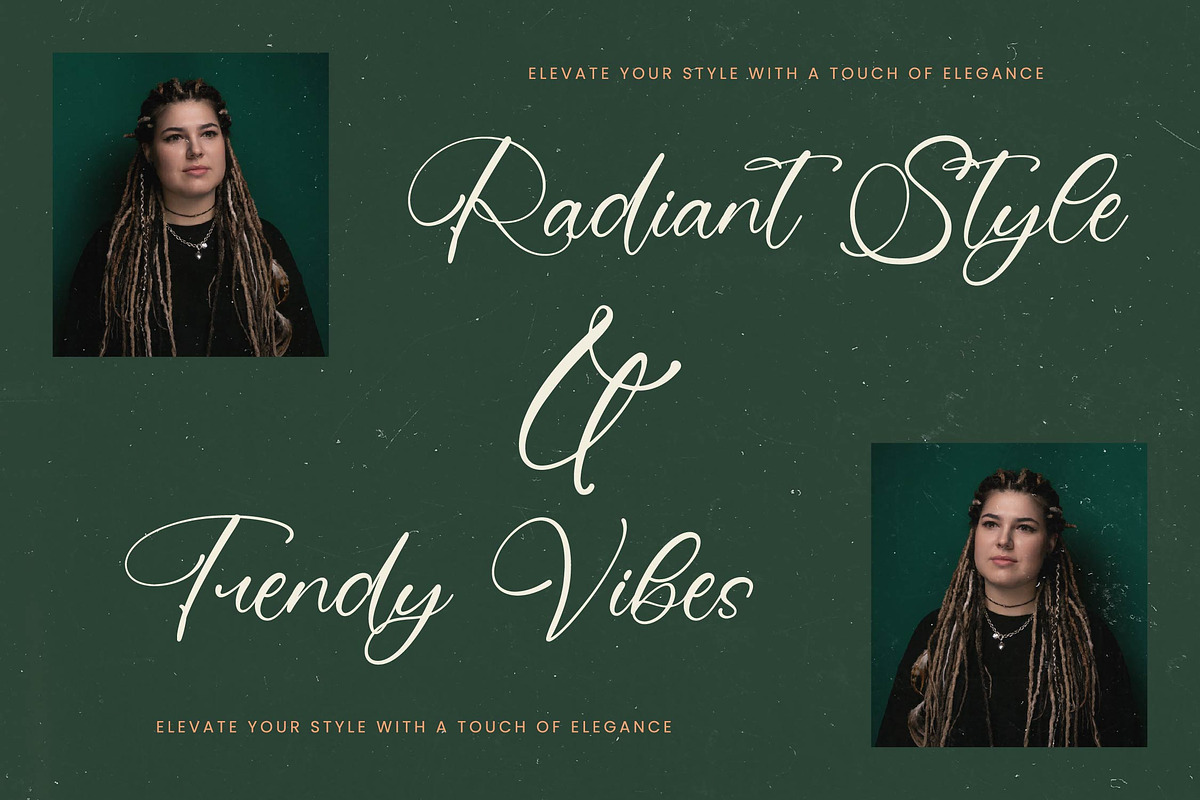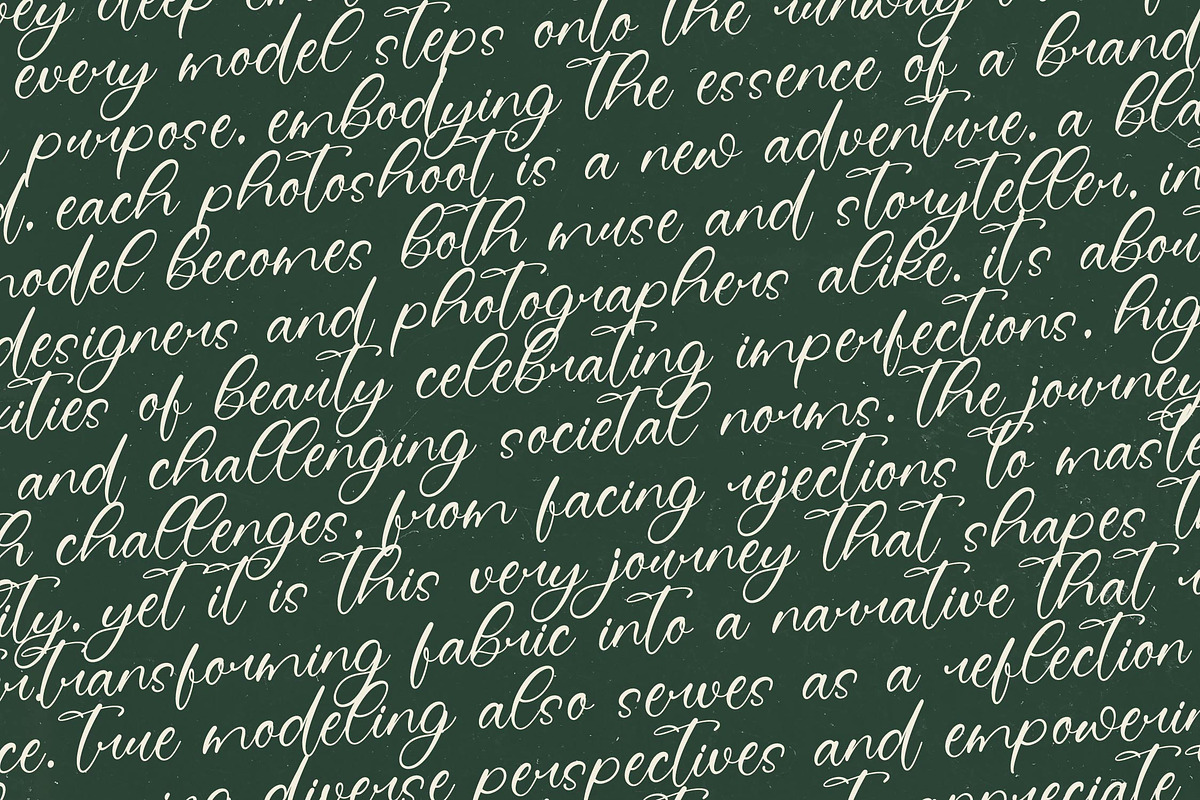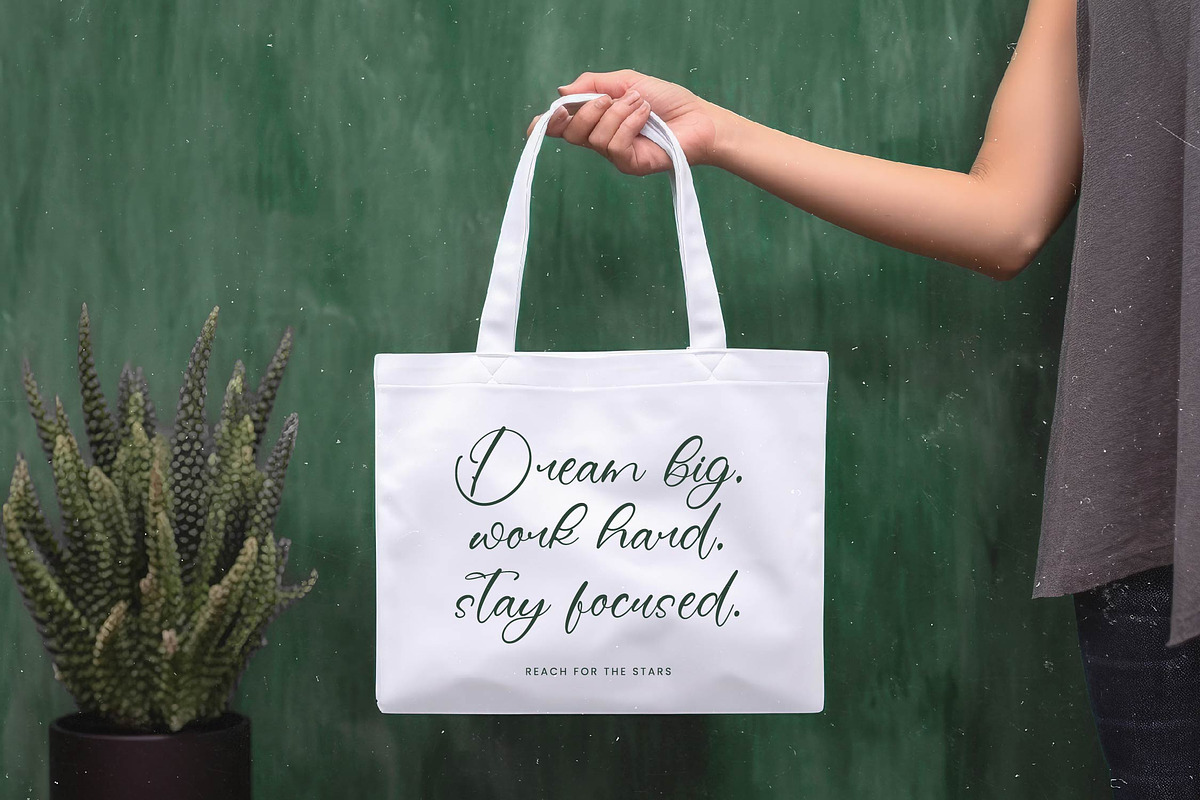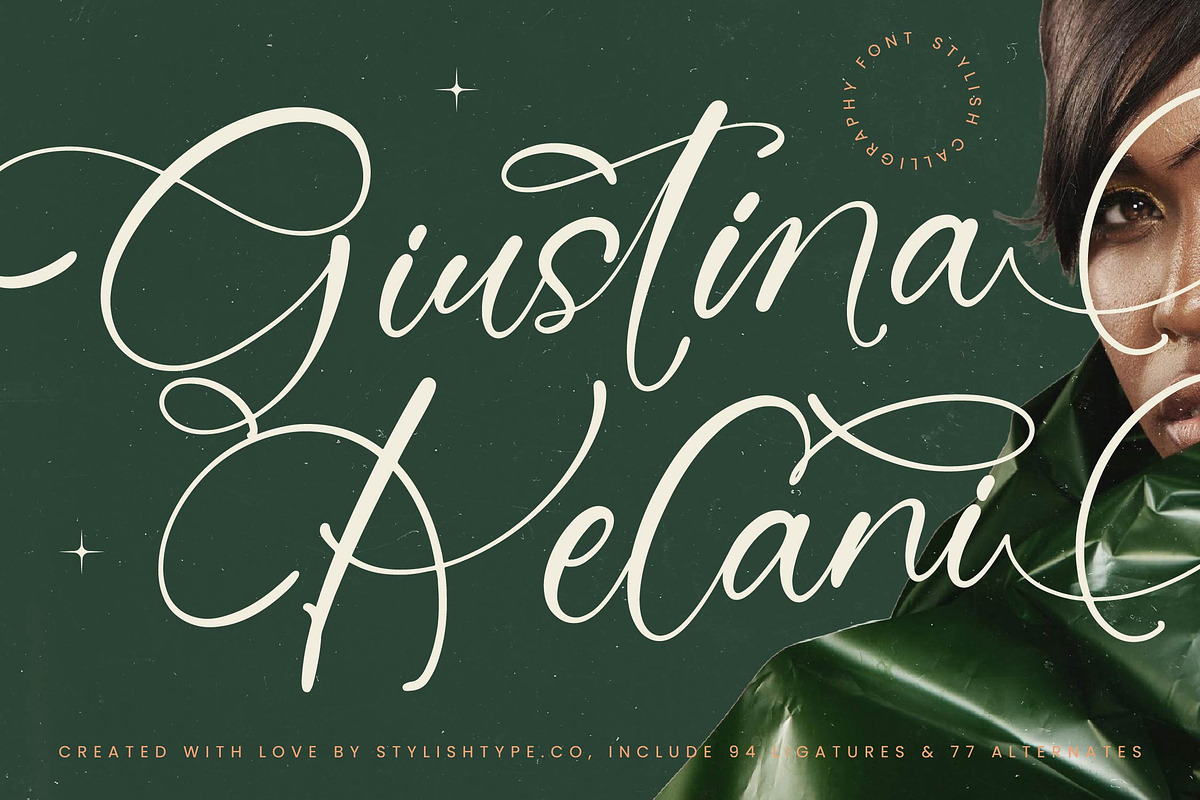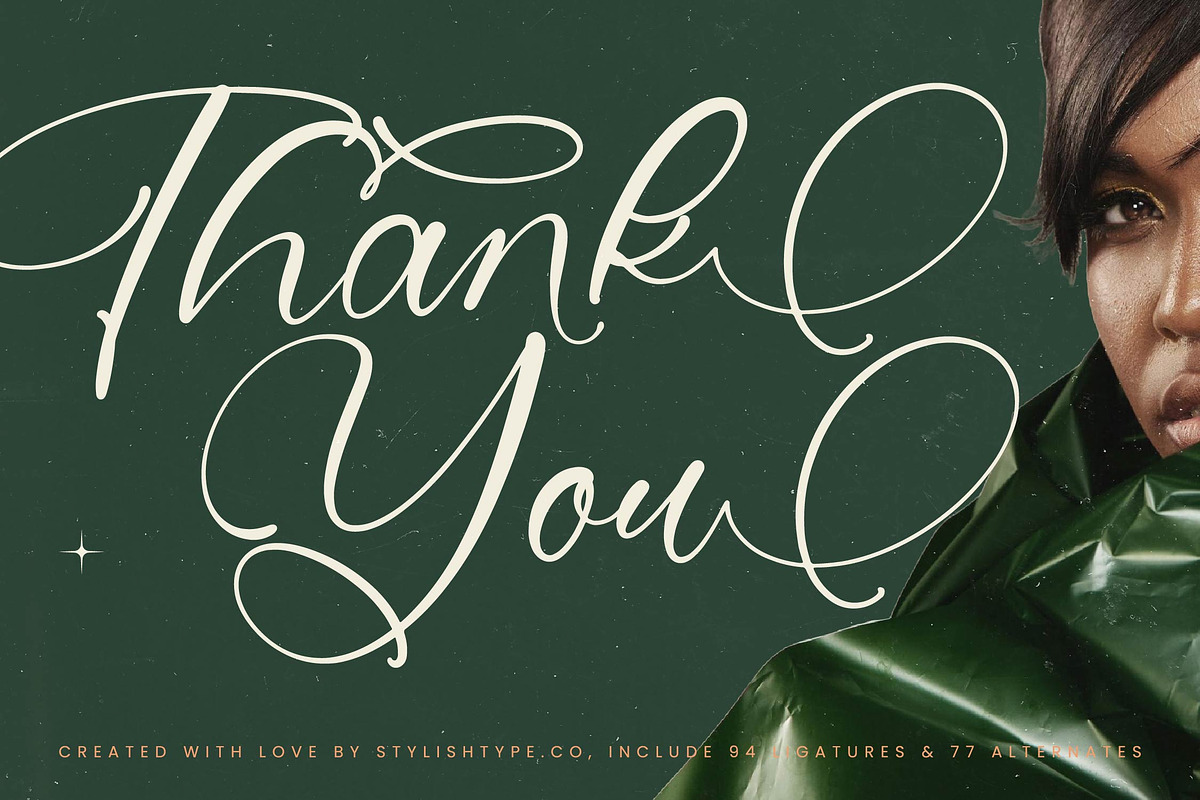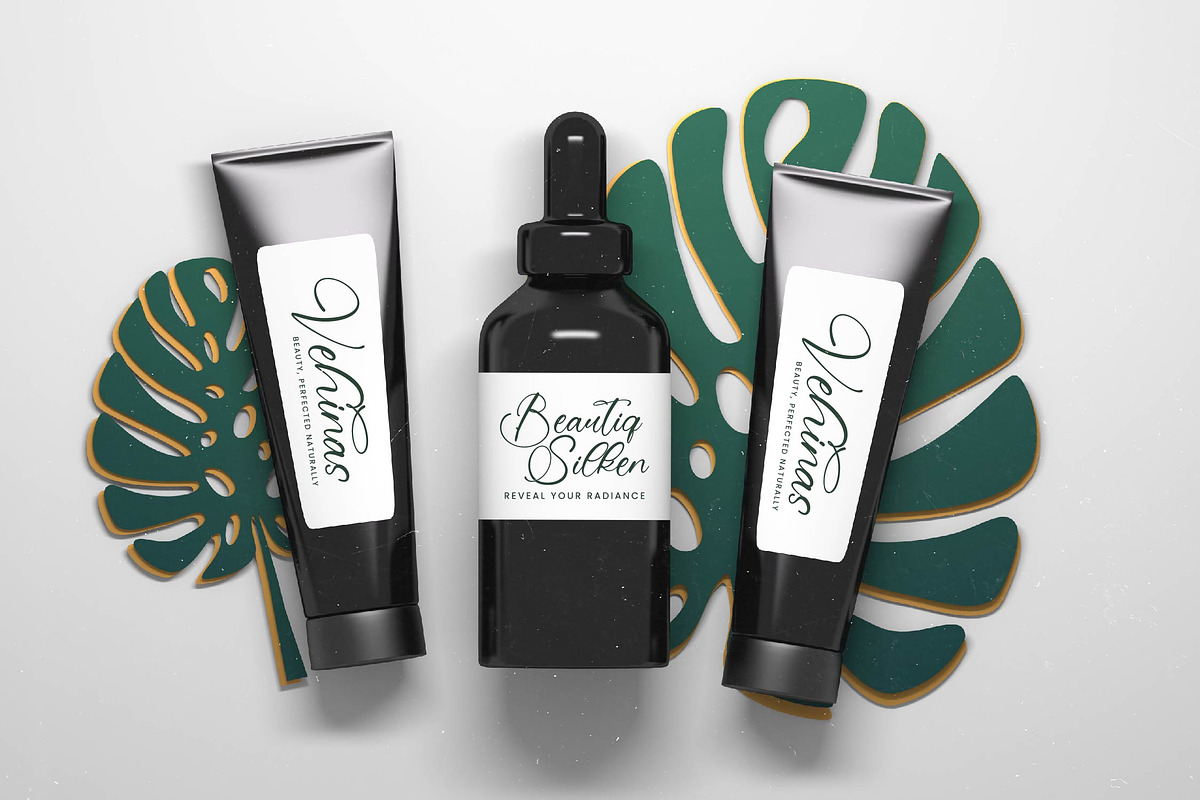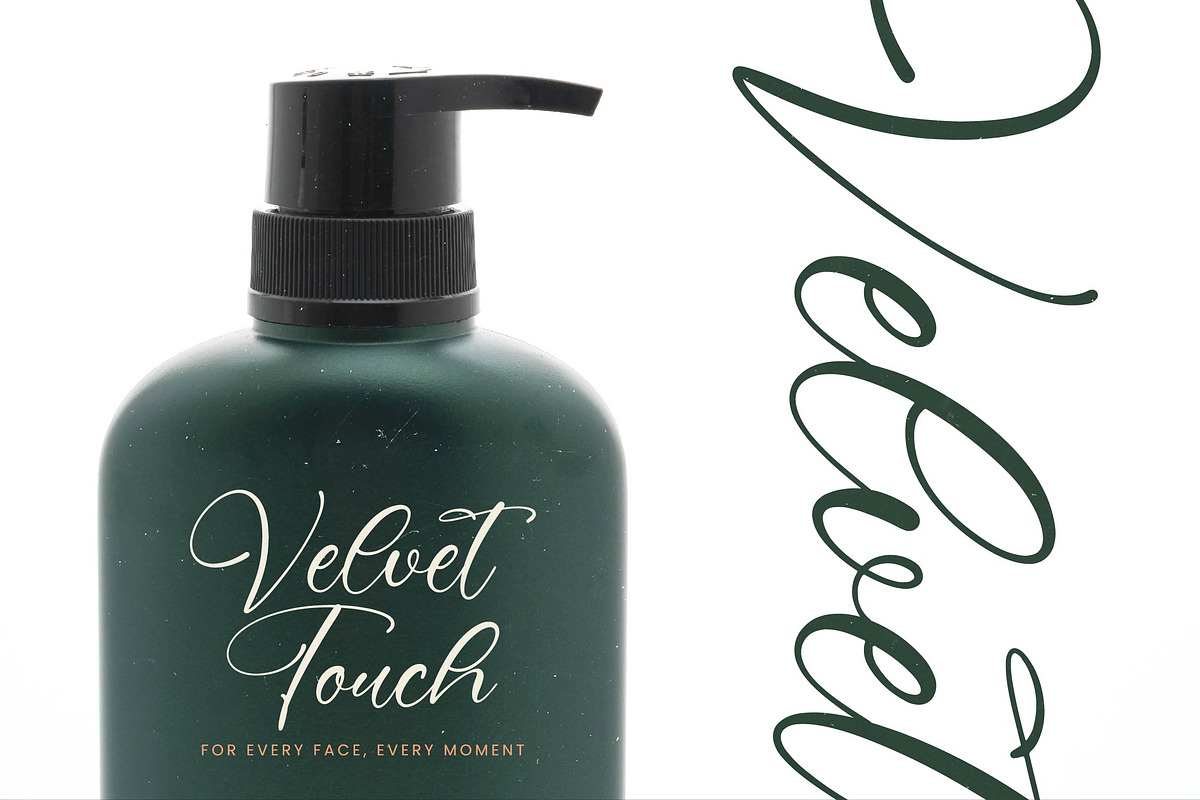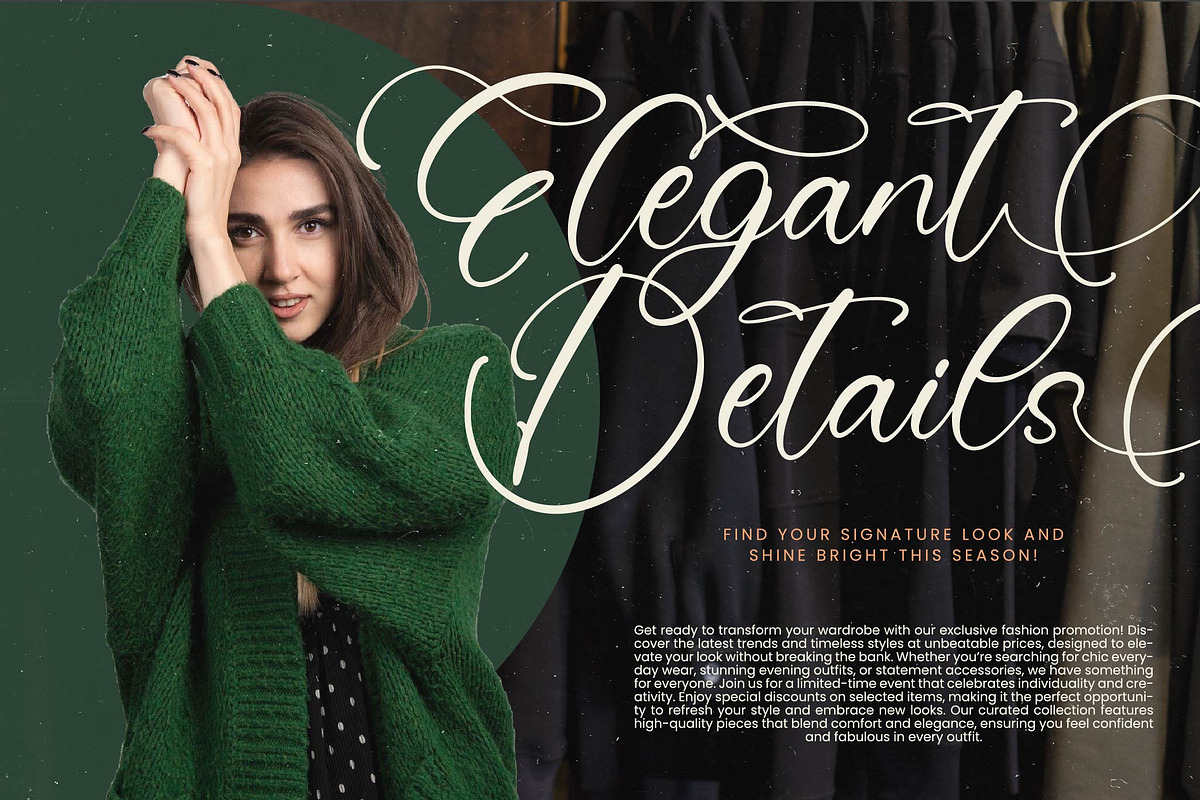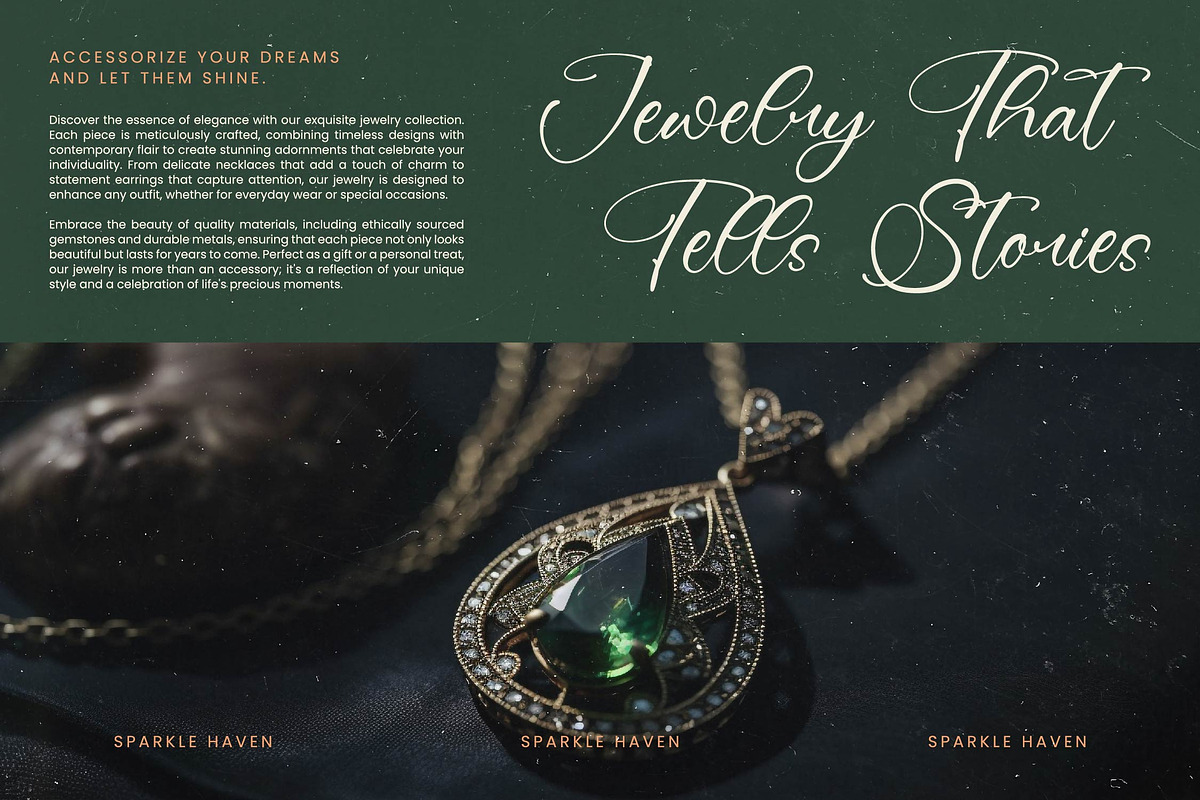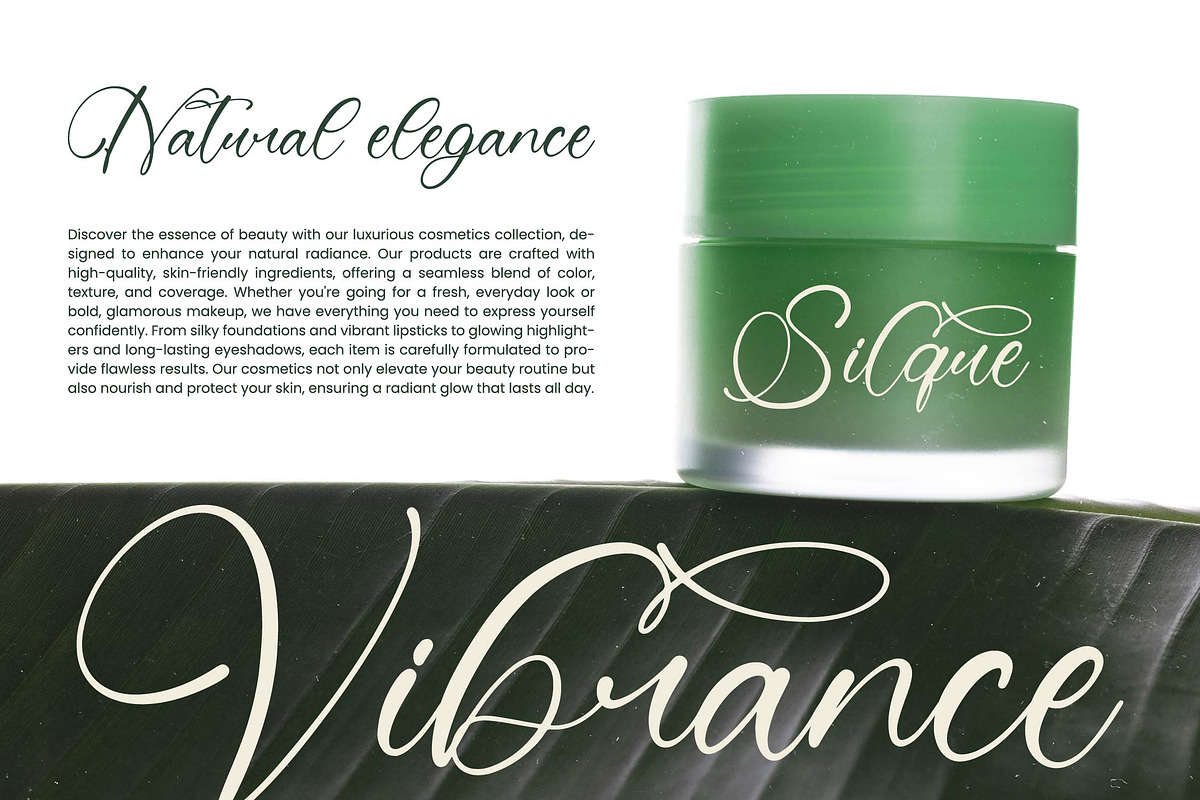
Giustina Kelani Stylish Calligraphy
Giustina Kelani - Stylish Calligraphy Font , from Stylishtype.Co , Suitable for any projects such as: logos, branding projects, homeware designs, product packaging, mugs, quotes, posters, shopping bags, t-shirts, book covers, name card, invitation cards, greeting cards, label, photography, watermark, special events, and all your other luxury and beautiful projects that need a Luxury Script taste.
- 94 Ligature 77 Alternates & Swashes